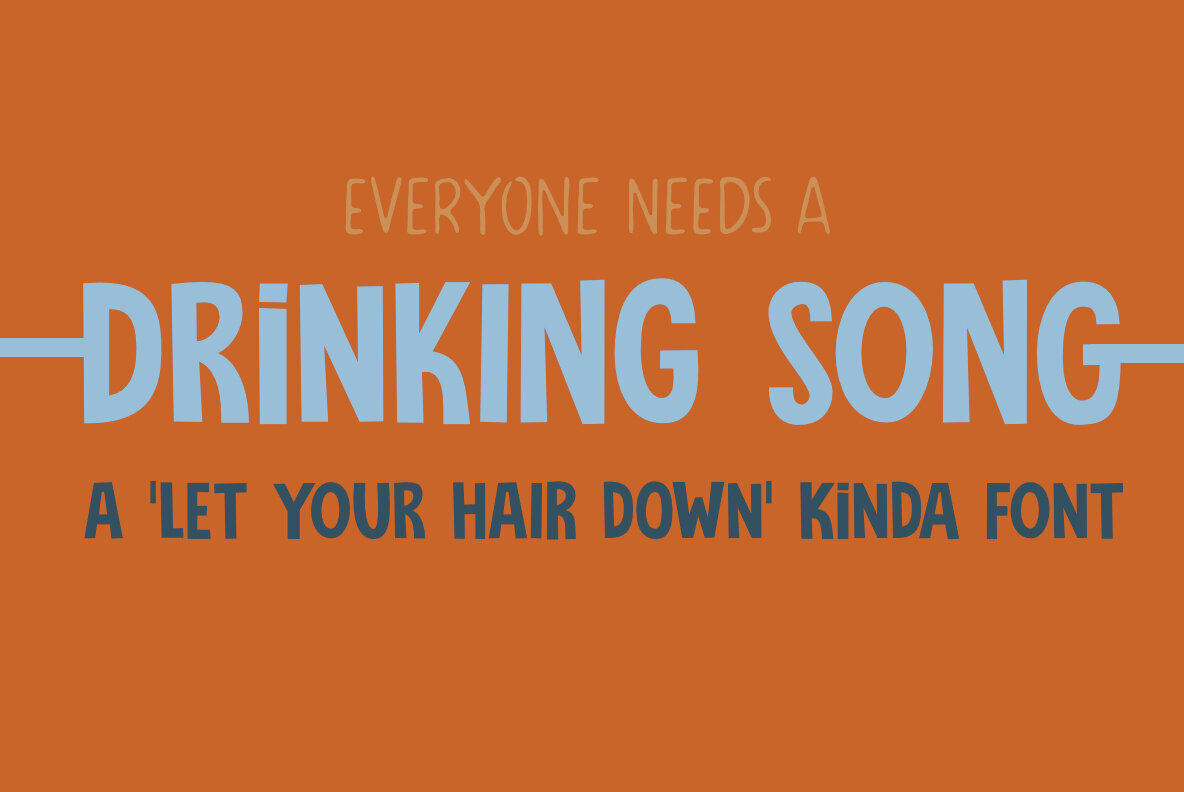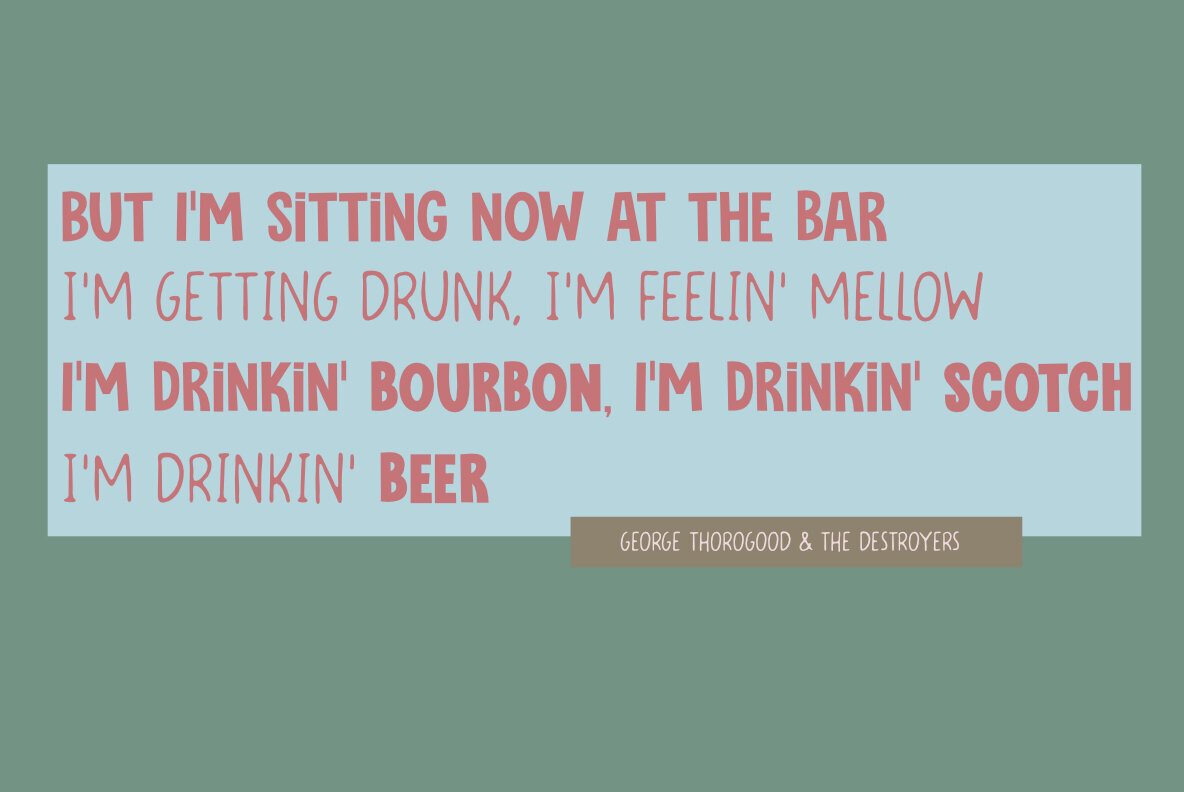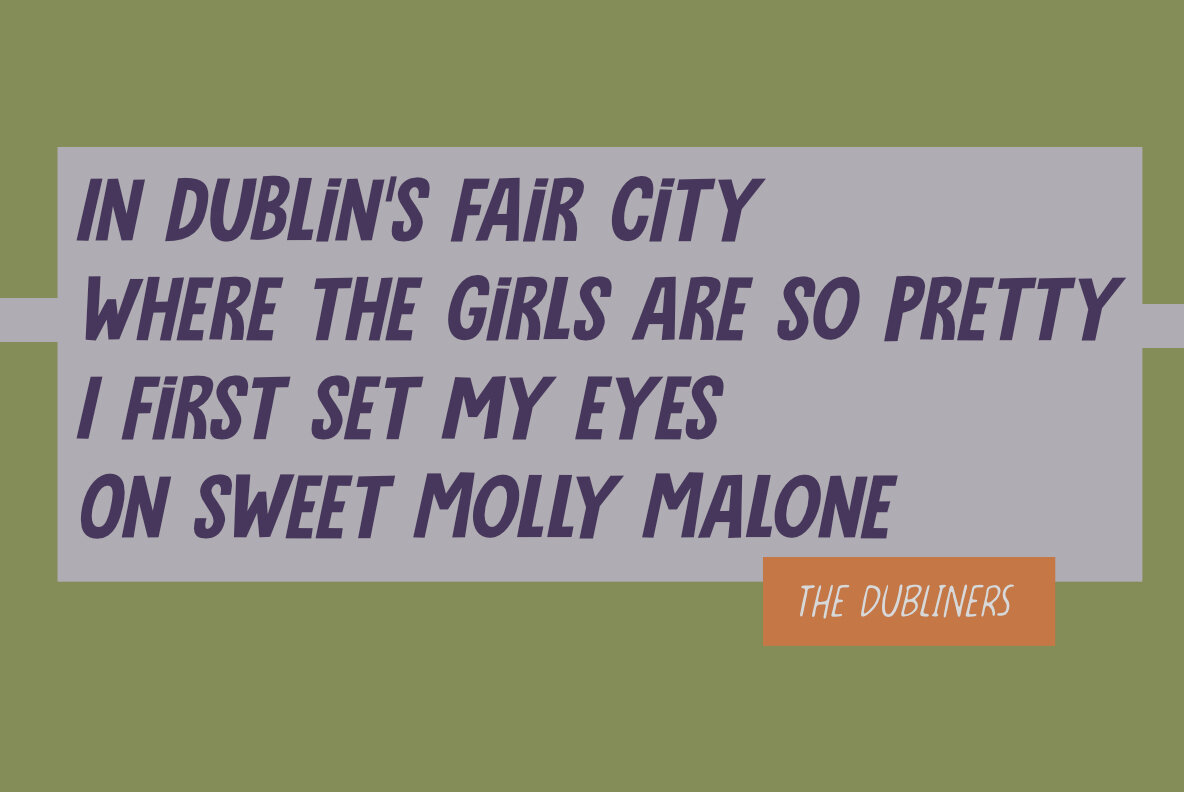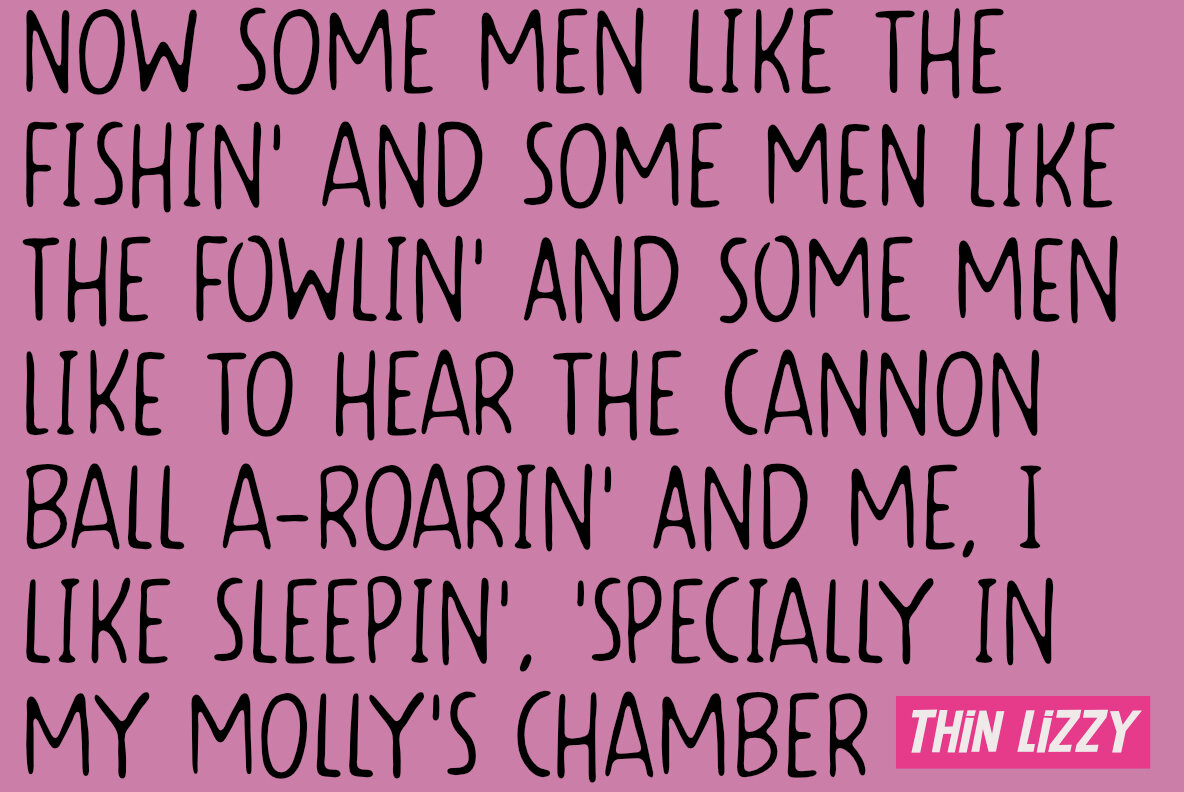
Drinking Song Font
Drinking Song is a typeface inspired by the timeless energy of classic rock anthems. Drawing influence from the iconic "Whiskey In The Jar" by Thin Lizzy, this design pays homage to musical legends known for their creativity and spirited performances. The result is a font family that captures raw expression and authenticity, perfectly suited for projects demanding character and impact. This typeface is ideal for editorial work, posters, packaging, and branding where a strong personality takes center stage. Each letterform offers a sense of rhythm and confidence—an echo of its musical roots—making it a unique choice for designers looking to make a statement.Drinking Song: A Bold Tribute to Classic Rock